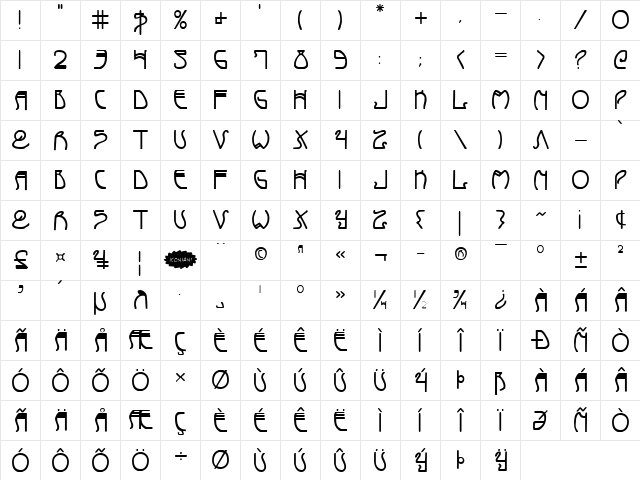
Coyote Deco Bold Bold
Design Context for Coyote Deco Bold Typeface
Coyote Deco Bold is a composed and adaptable typeface that performs quietly and consistently across a wide range of design contexts. Its bold stroke weight gives it real presence on the page.